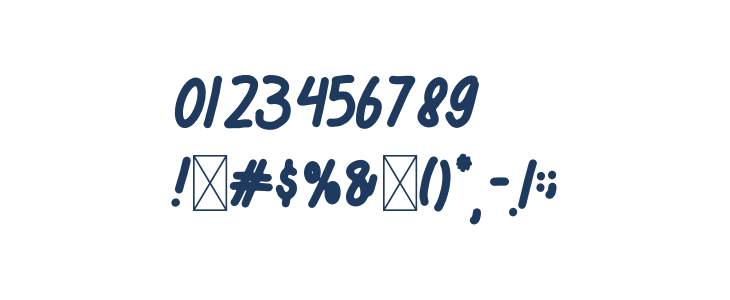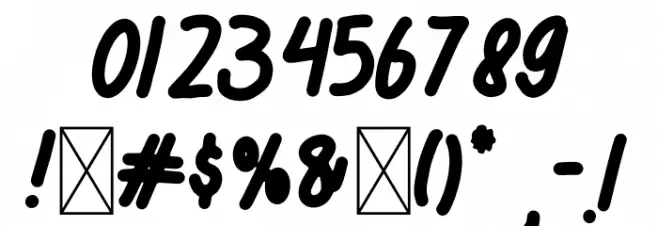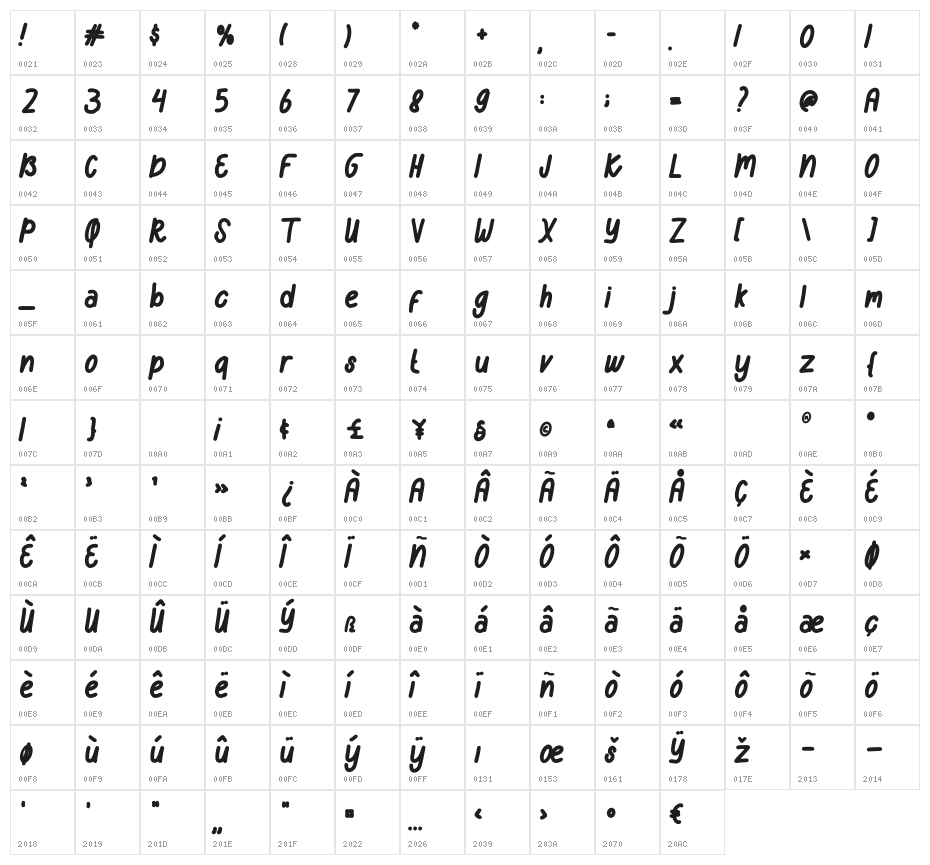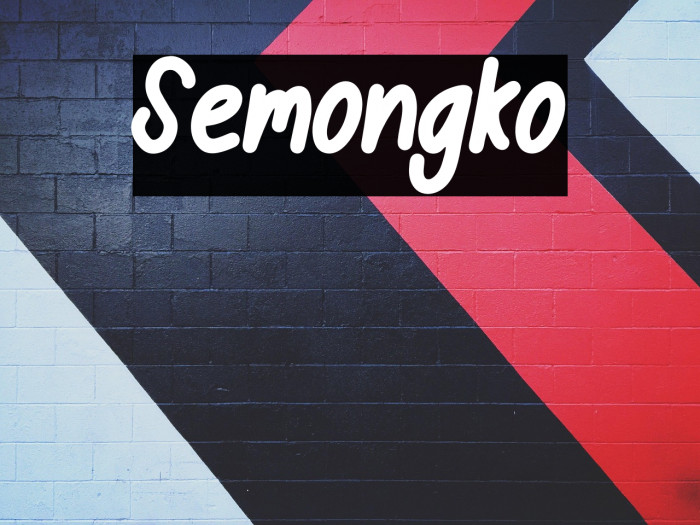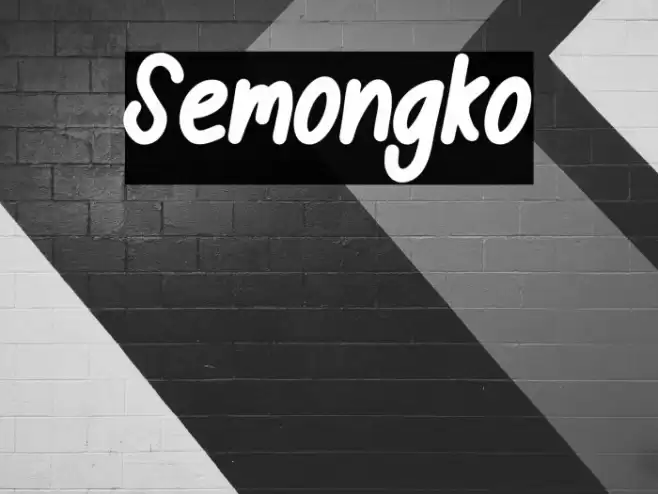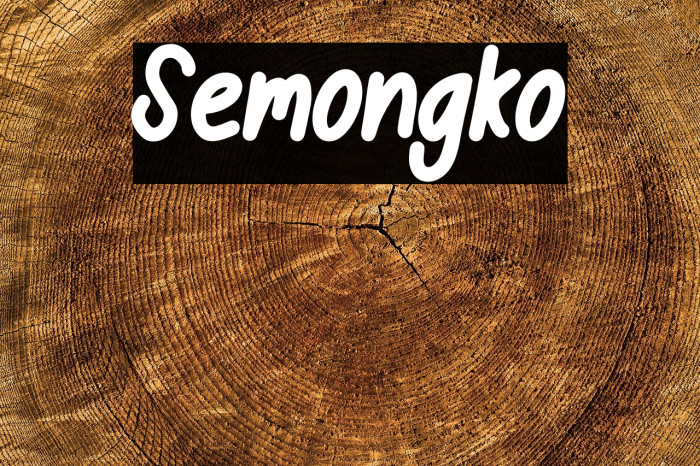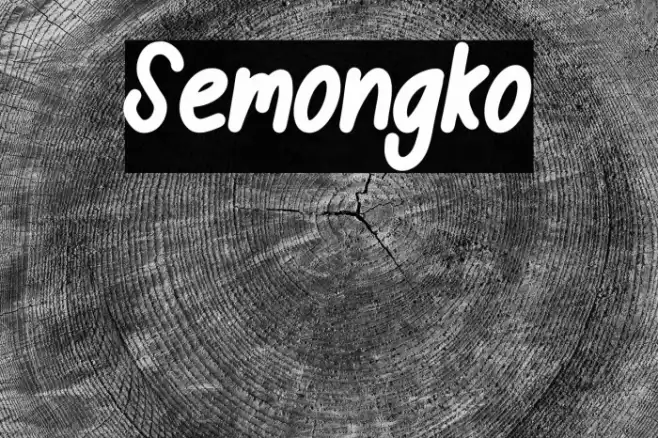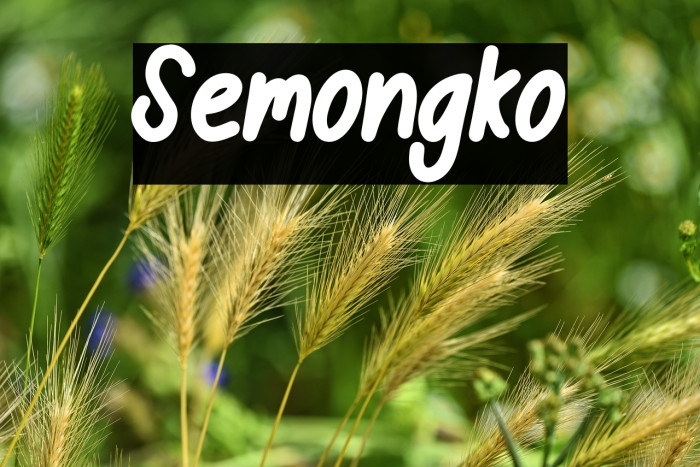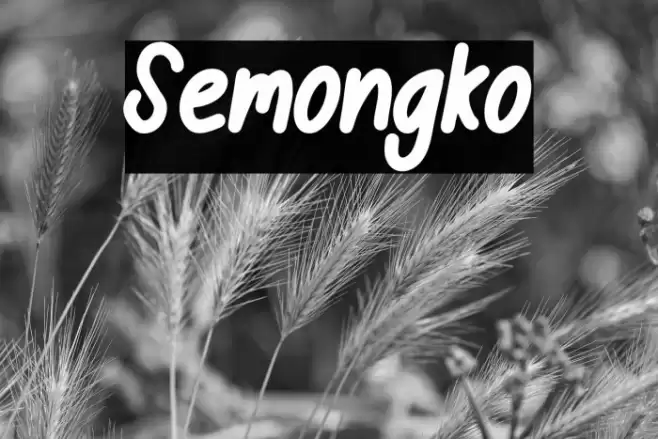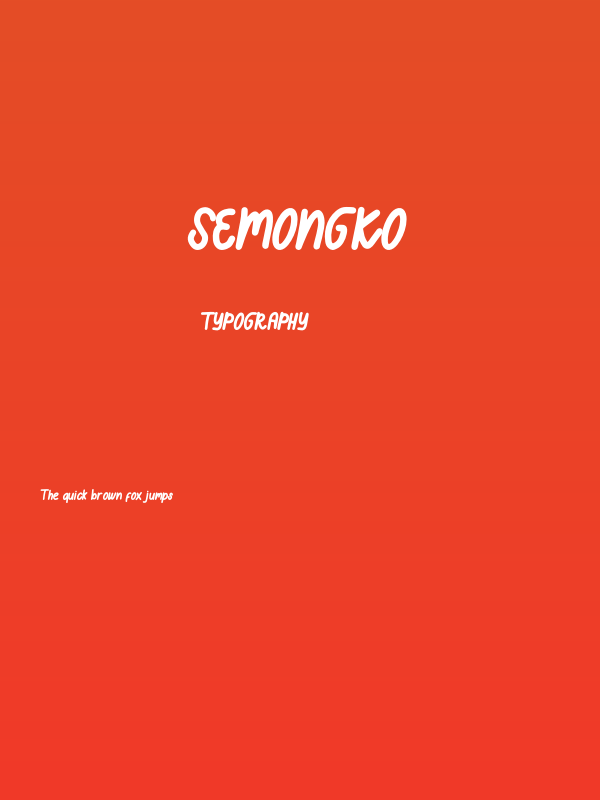
Semongko Font
Semongko Description
This font features a playful and bold handwritten style, characterized by its smooth, rounded edges and consistent stroke width. The letters are slightly slanted, giving it a dynamic and informal appearance. The uppercase and lowercase letters maintain a cohesive look, with the uppercase being slightly larger and more prominent. The numerals and special characters follow the same design principles, ensuring uniformity across all characters. This font exudes a friendly and approachable vibe, making it suitable for casual and creative projects.